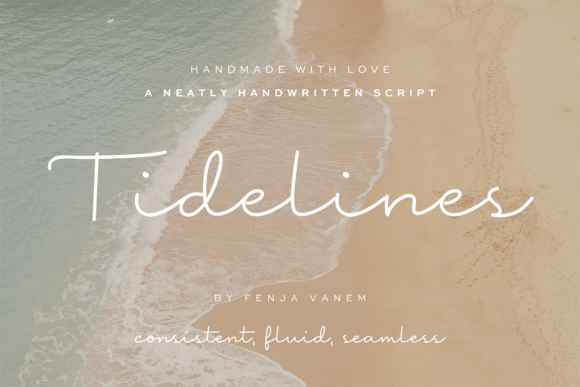
Introducing 'Tidelines' - the epitome of elegance and grace in the world of script writing fonts. Created by the talented minds at Pretty Decadent, this font is designed to captivate your senses and transport you to the serene rhythm of the ocean's edge.
With Tidelines, your words will effortlessly flow like gentle waves, leaving a lasting impression on anyone who lays eyes upon them. Imagine the feeling of a handwritten love letter, carefully crafted and imbued with emotions that only the finest script can convey. This font will add a refined, personal touch to any project, making it truly unforgettable.
Crafted with meticulous attention to detail, Tidelines merges the beauty of calligraphy with the simplicity of modern design. Each stroke is carefully etched, creating a harmonious balance that is both visually striking and easy on the eyes. Whether you're designing wedding invitations, branding materials, or personal stationery, this font will elevate your creations to new heights of sophistication.
But Tidelines is more than just a font - it's a journey. It's the moment you discover a message in a bottle, washed ashore, waiting to be unraveled. It's the connection between the writer and the reader, bridging the gap with its timeless allure. With Tidelines, you have the power to evoke emotions, spark inspiration, and create a lasting impact.
Unlock your creativity and let Tidelines guide your words with its enchanting charm. This font is the perfect companion for those seeking to make a statement, leave a lasting impression, and elevate their projects to new horizons. It's time to unleash the power of Tidelines and let your creativity flow like the endless ocean.